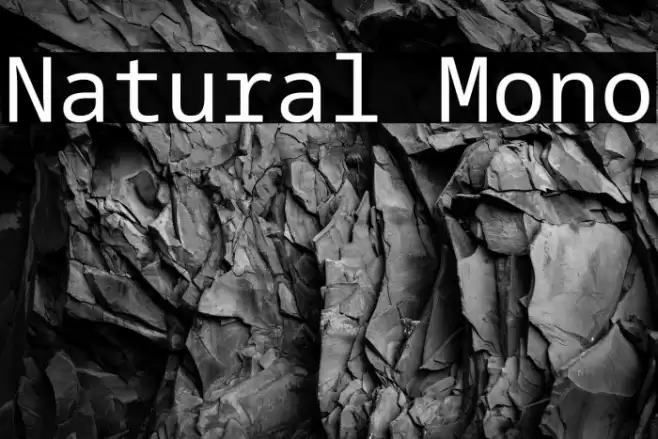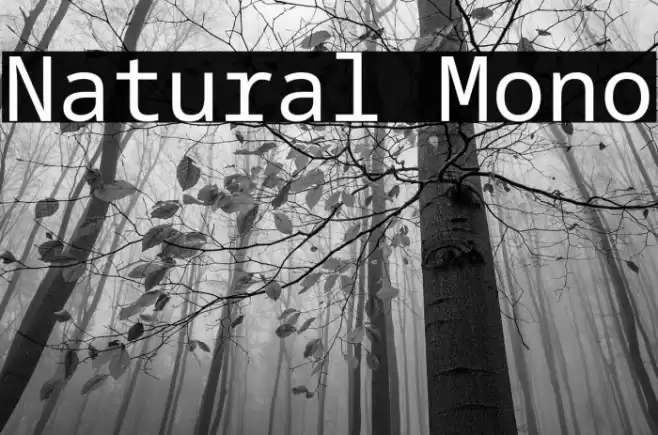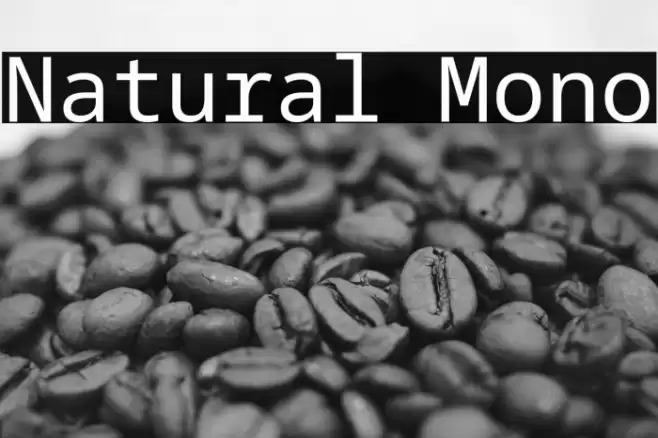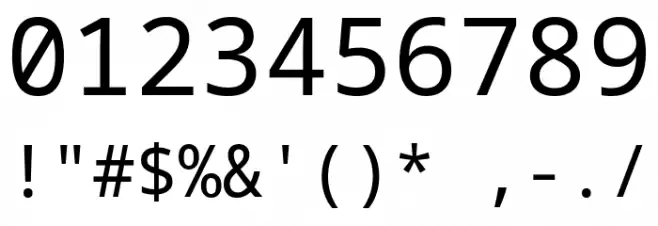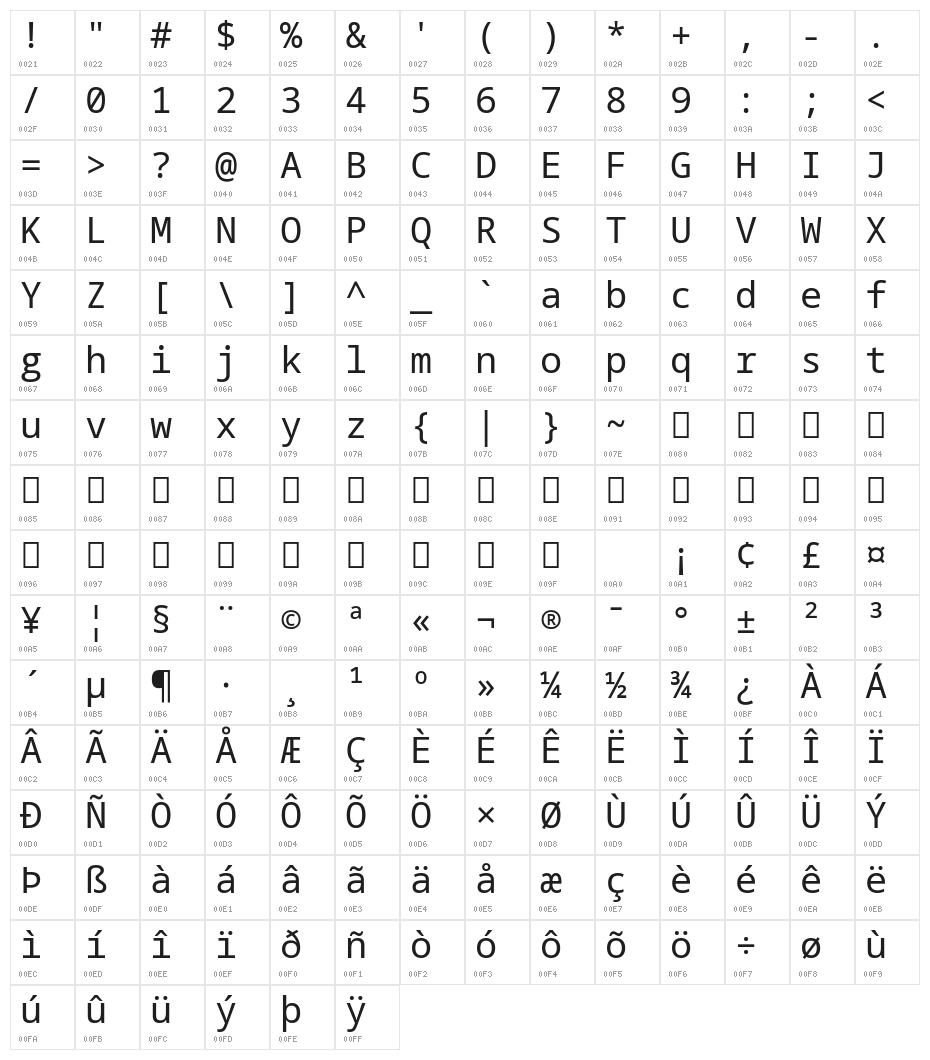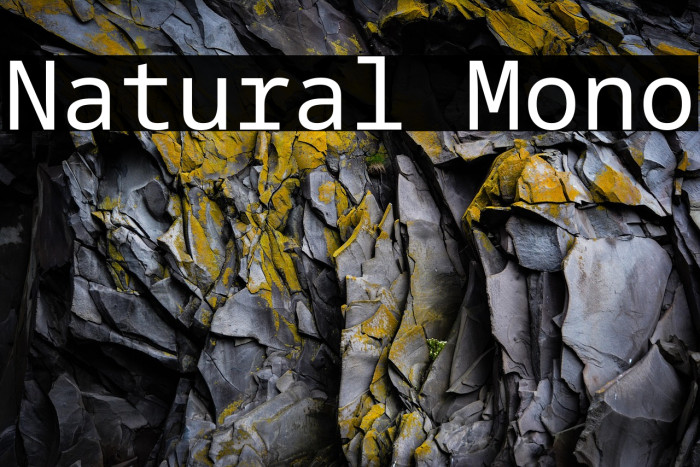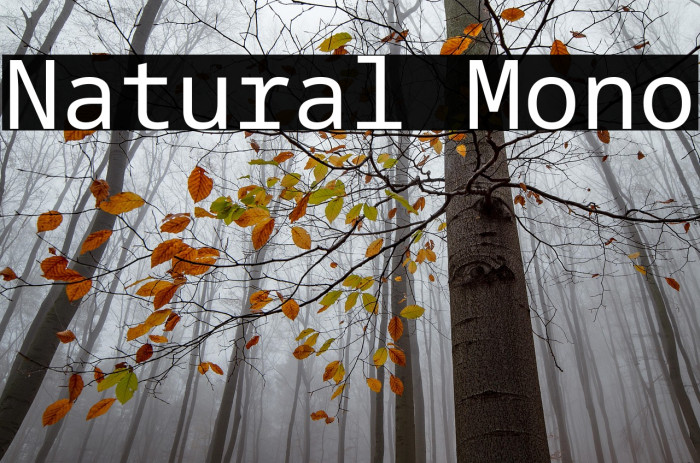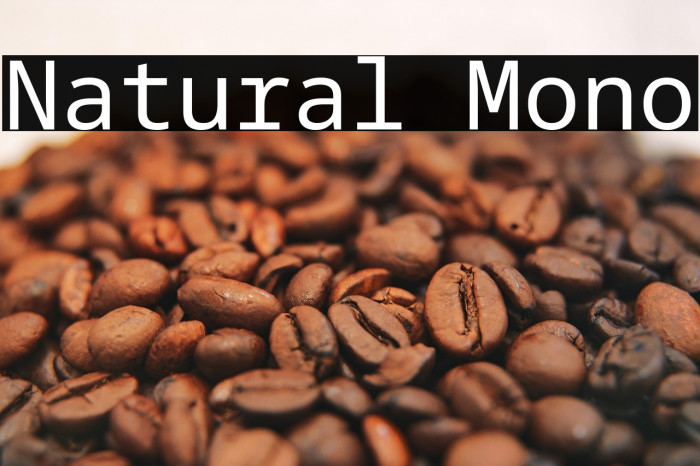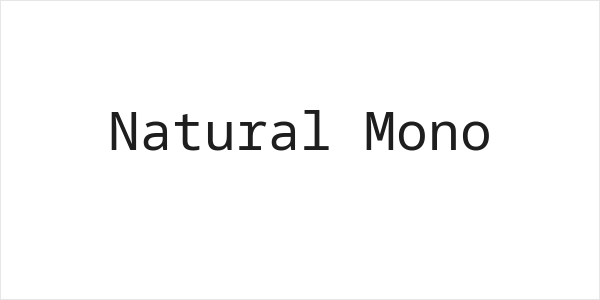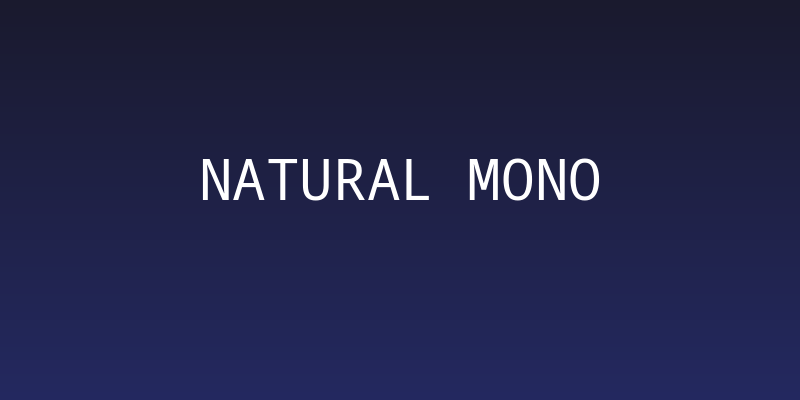
Natural Mono Font
Natural Mono Description
This font features a clean and modern monospaced design, characterized by uniform character width and a straightforward, minimalist aesthetic. The uppercase and lowercase letters are well-proportioned, with a consistent stroke width that enhances readability. The numerals are clear and distinct, making them suitable for technical and coding applications. Special characters are neatly designed, maintaining the font's overall simplicity and functionality. The font's geometric shapes and balanced spacing contribute to its professional appearance, making it ideal for both digital and print media.
A clean, modern monospaced font with uniform character width and minimalist design from Uncategorized fonts.
- Proposed Projects: Ideal for coding, technical documentation, data tables, and minimalist design projects.
- Use Case: Headlines, Body text, Logos, Coding